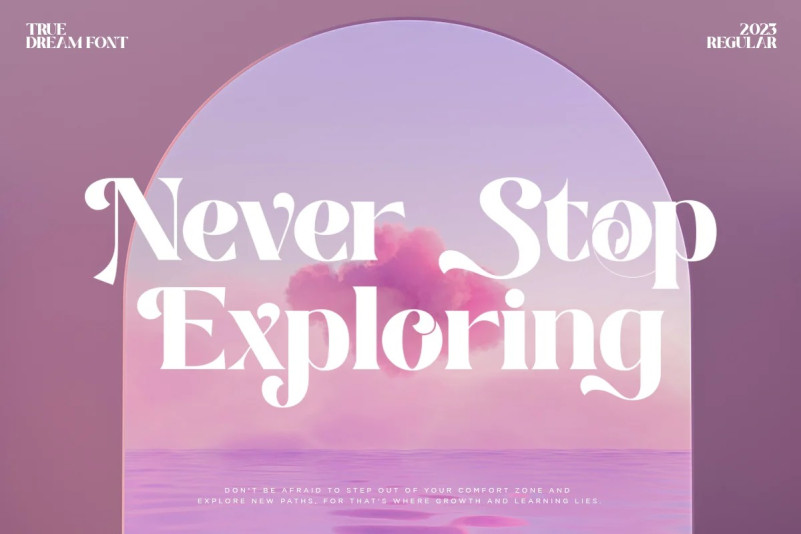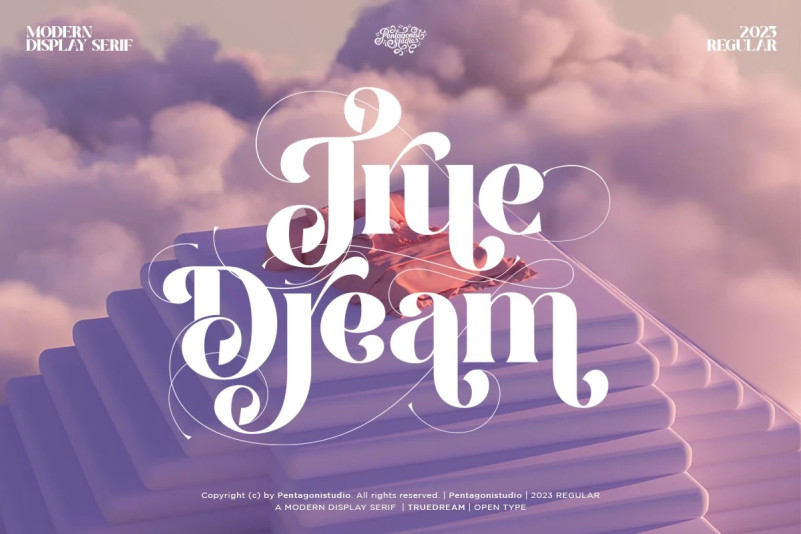
True Dream Font
True Dream Font is a modern display Serif font with large stylistic alternatives.  Perfectly fit for branding, logo, wedding things, greeting cards, fashion, lookbook, marketing promotion, anytime you want to look fancy elegant but still casual.